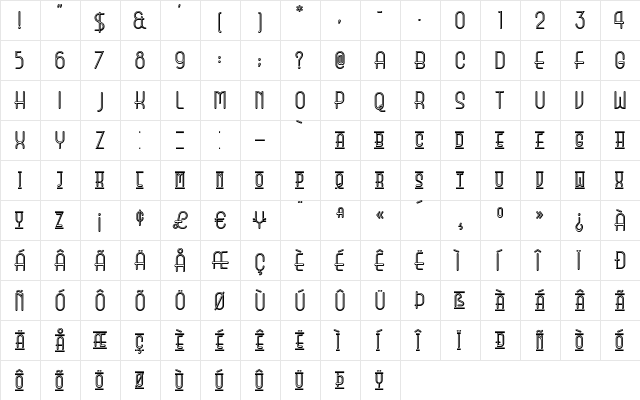
BeautySchoolDropoutII Regular
Design Context for BeautySchoolDropoutII Typeface
BeautySchoolDropoutII is a composed and adaptable typeface that performs quietly and consistently across a wide range of design contexts.